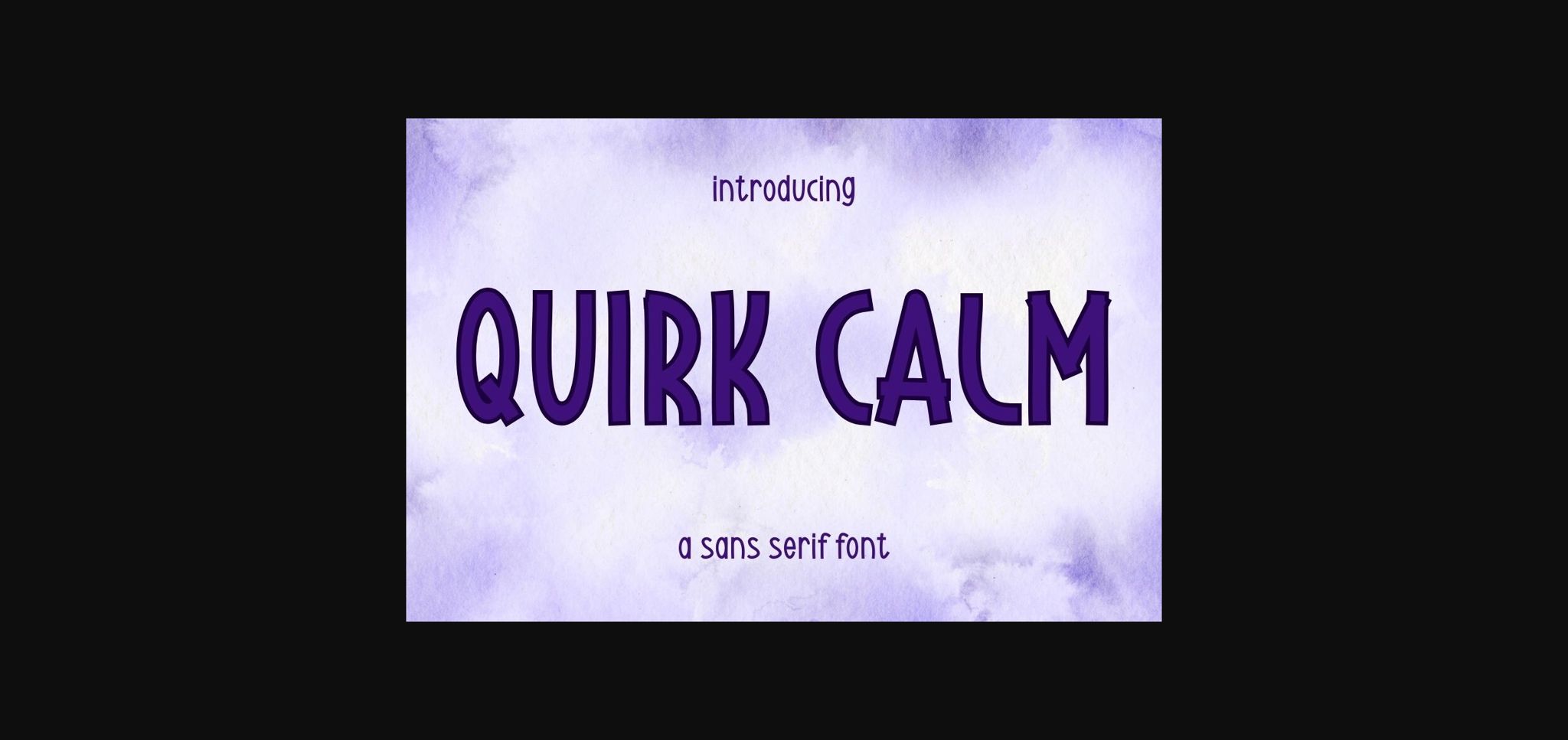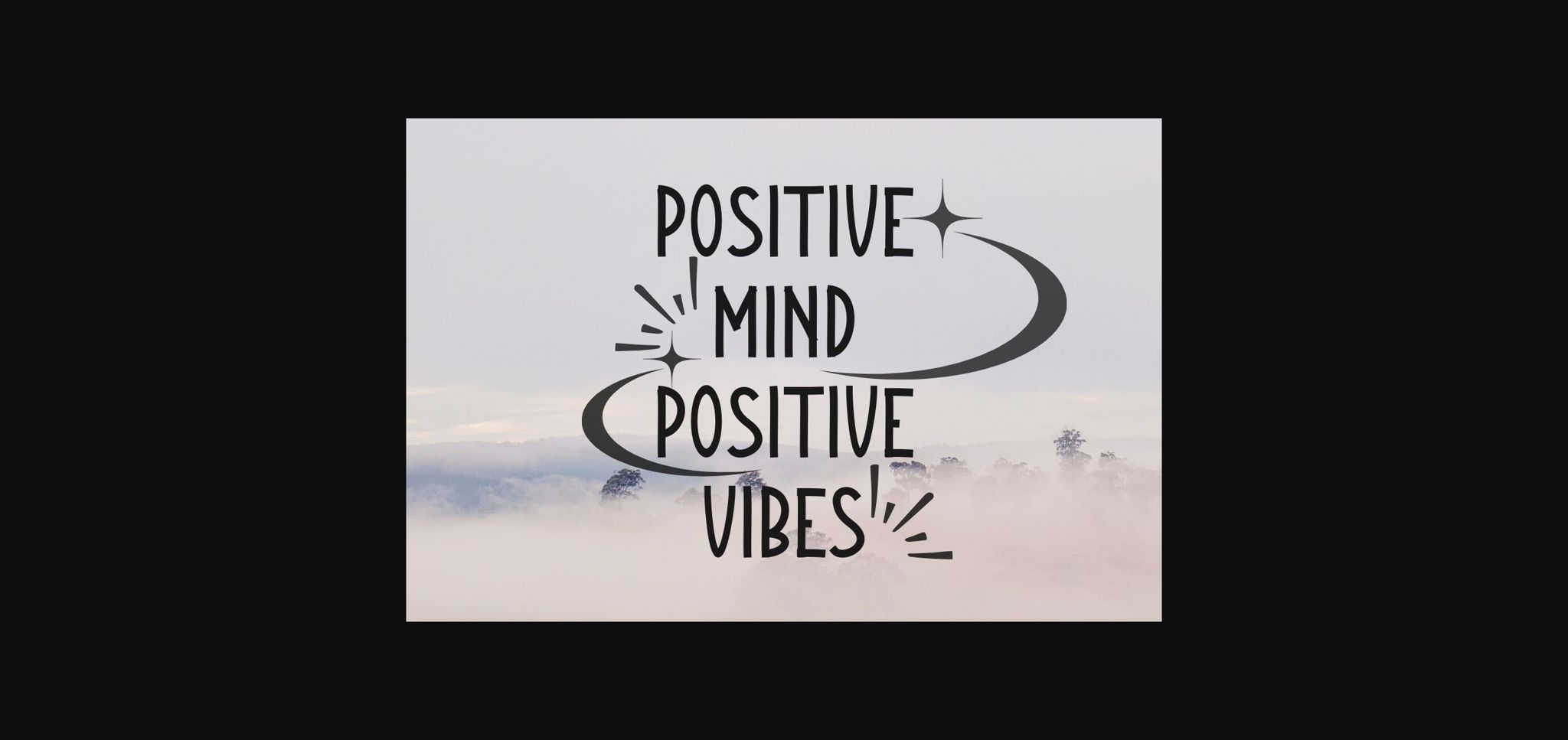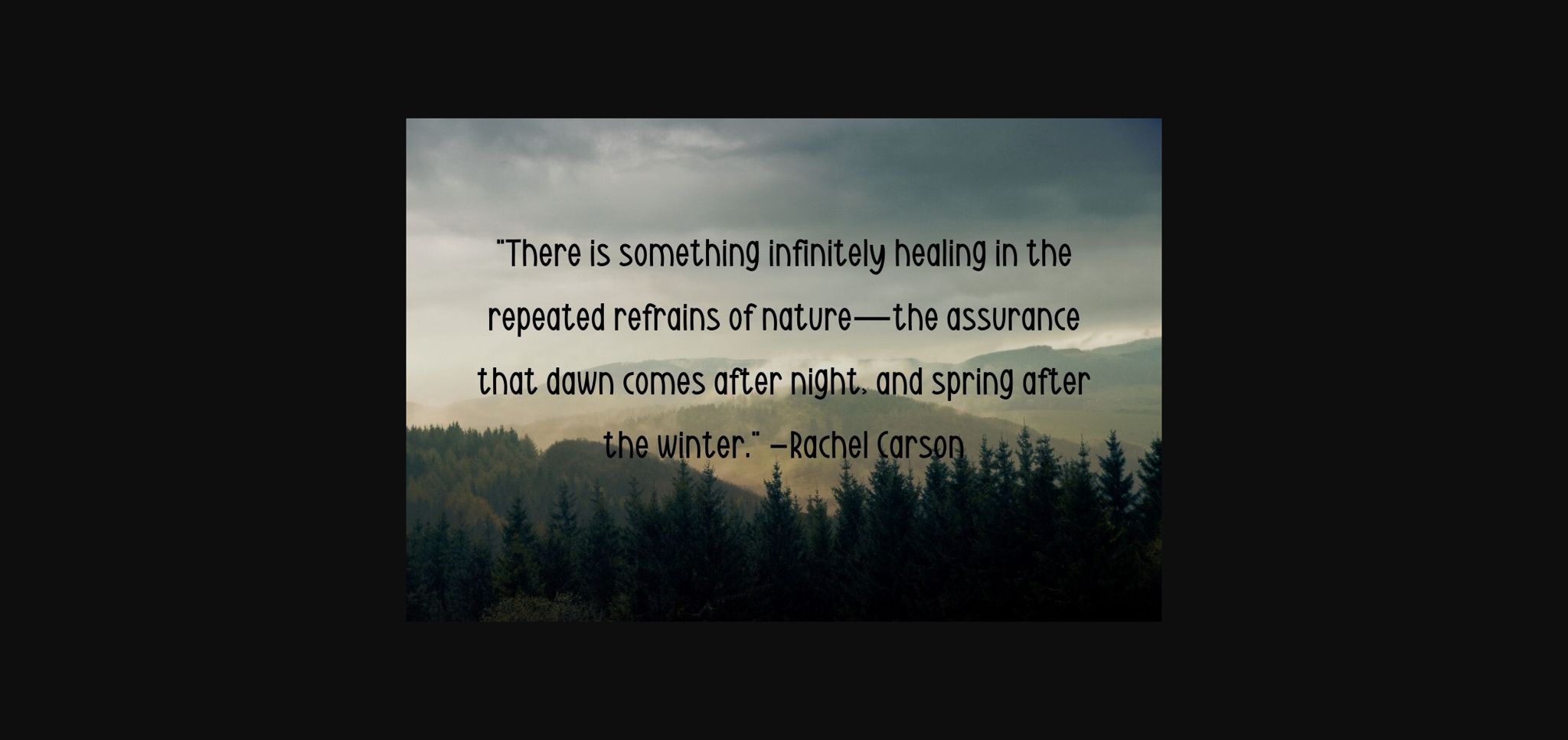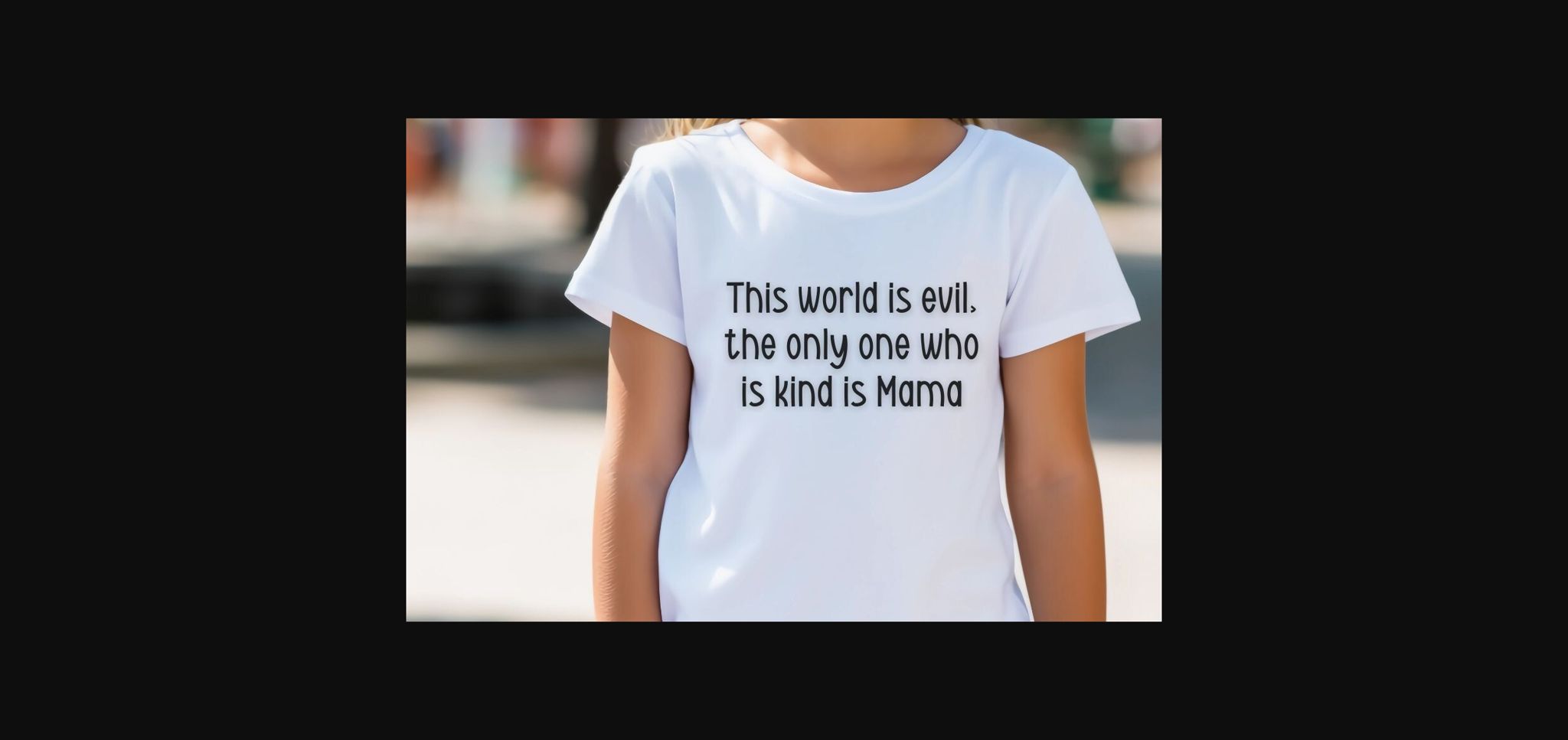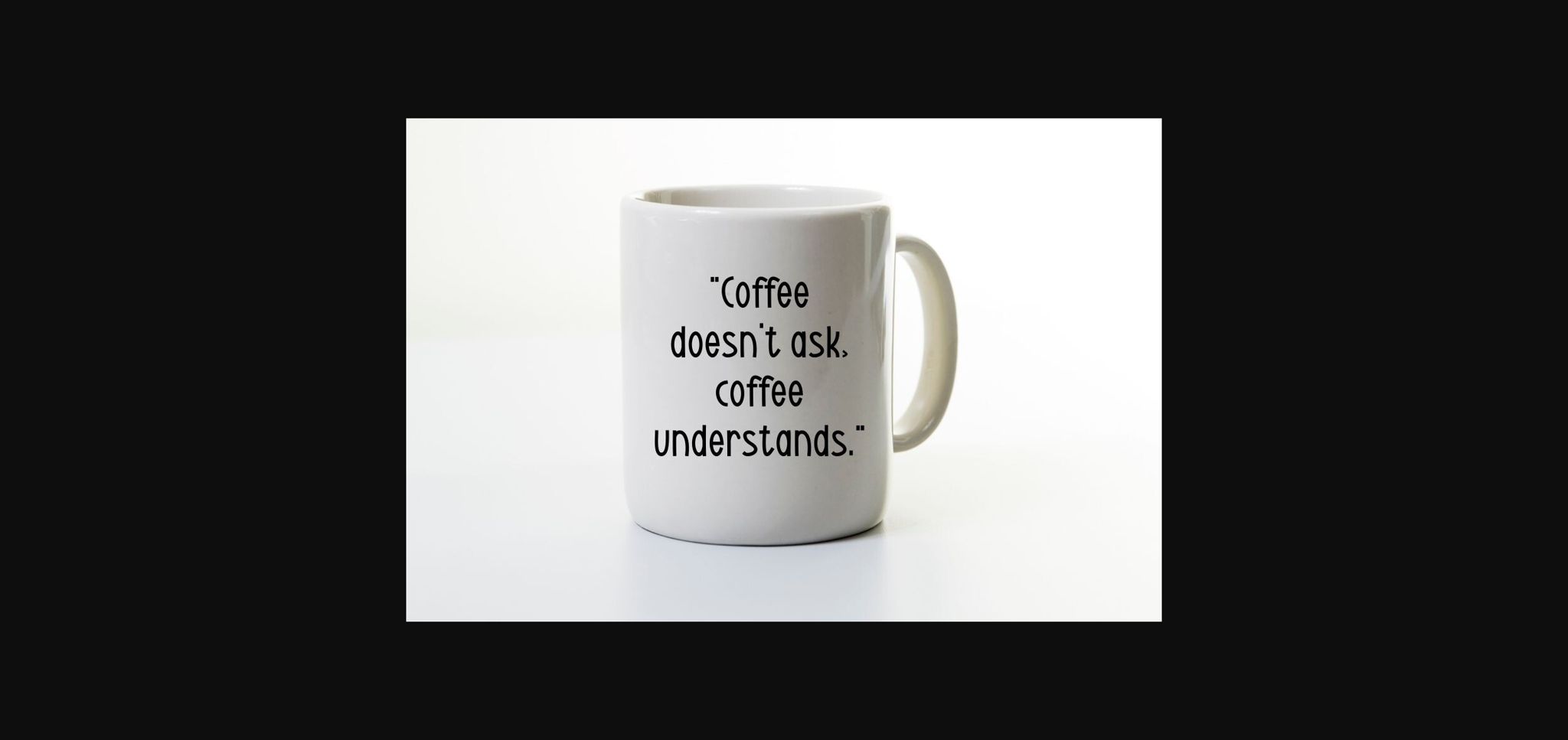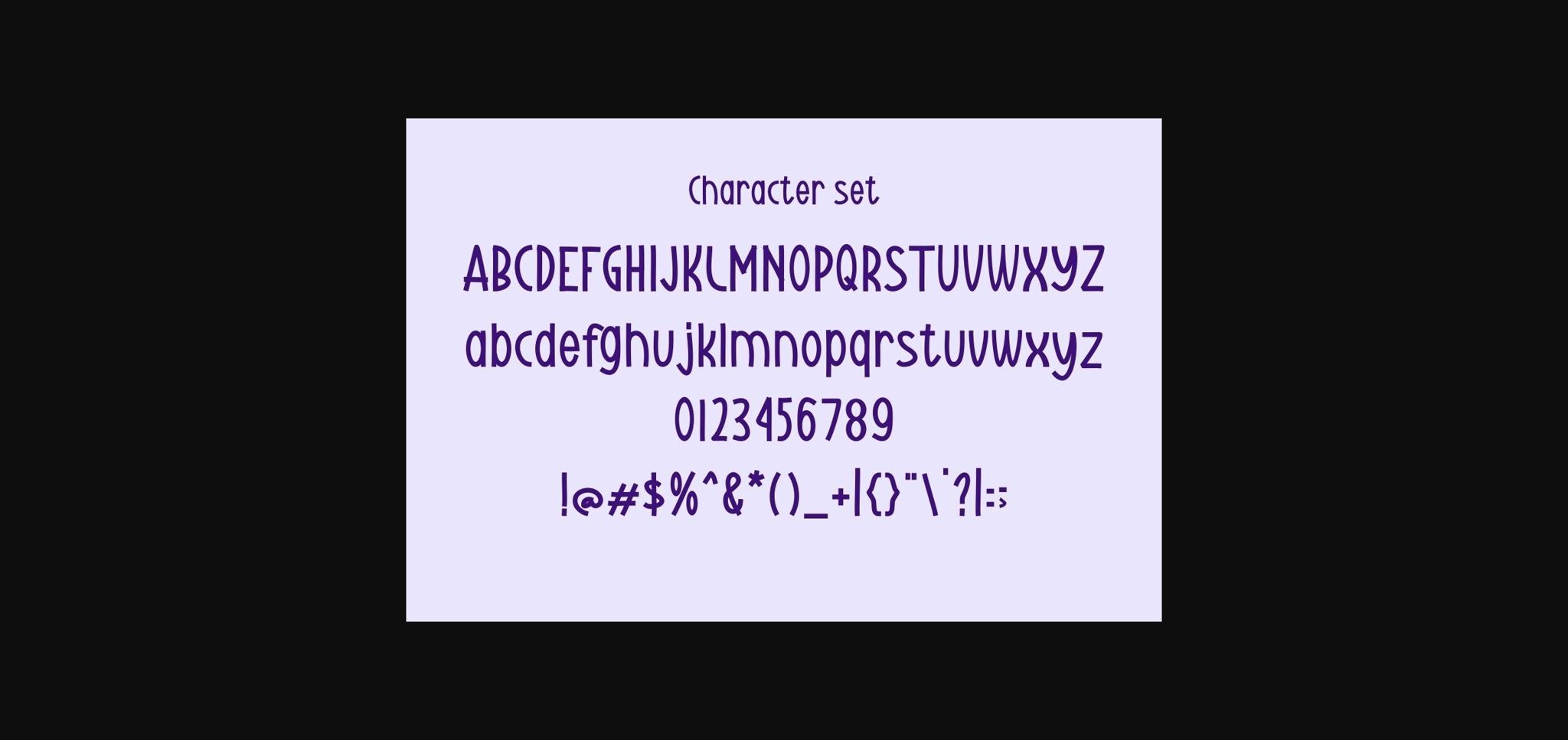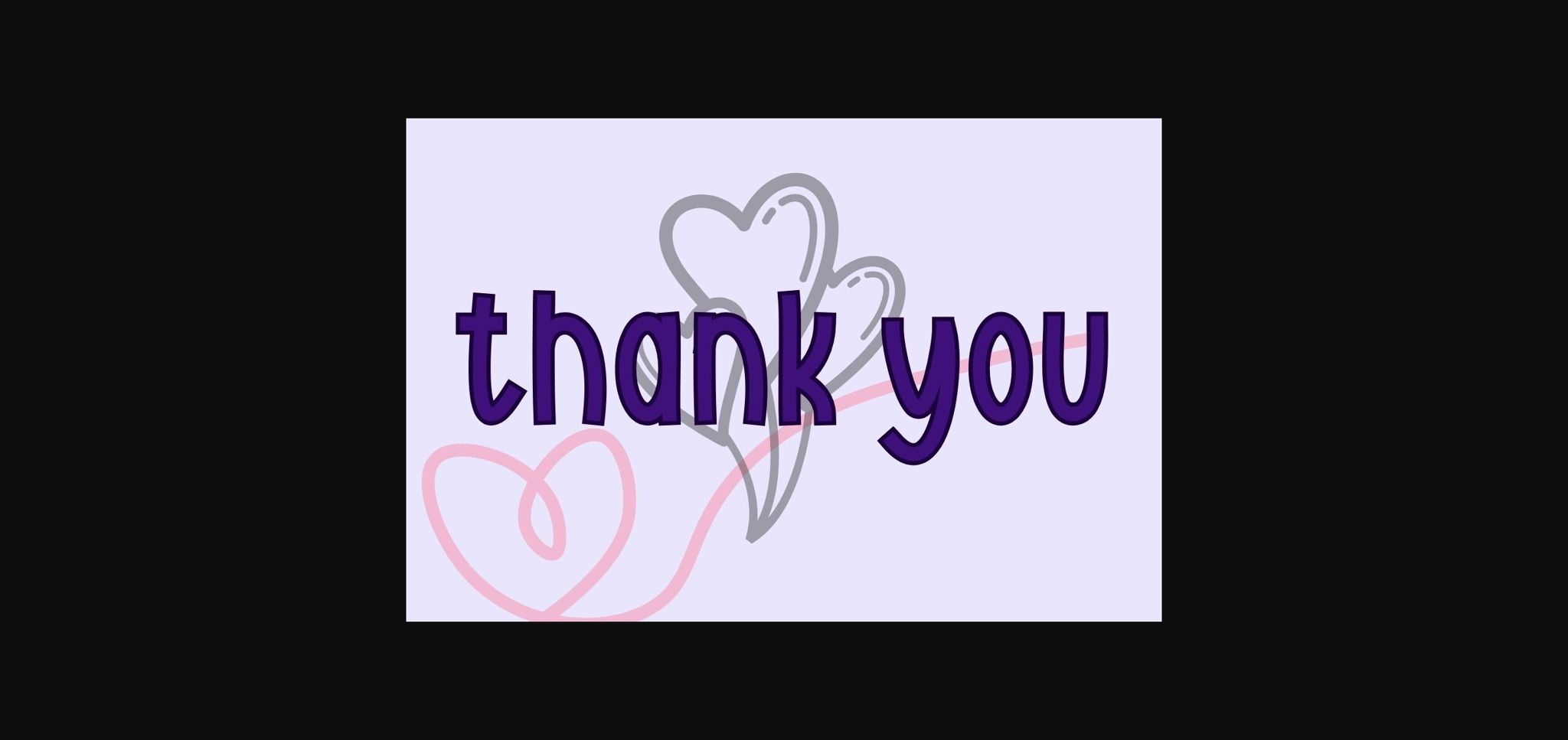
Quirk Calm Font
About Quirk Calm Font
Quirk Calm is a quirky modern sans serif font. A font that is very suitable for crafts, labels, quotes, decorations, labels, logotypes, book covers, t-shirts, web, posters, stickers, wall art, or other ideas. A font suitable for Crafters and Graphic Designers. This font is also suitable for Social Media.